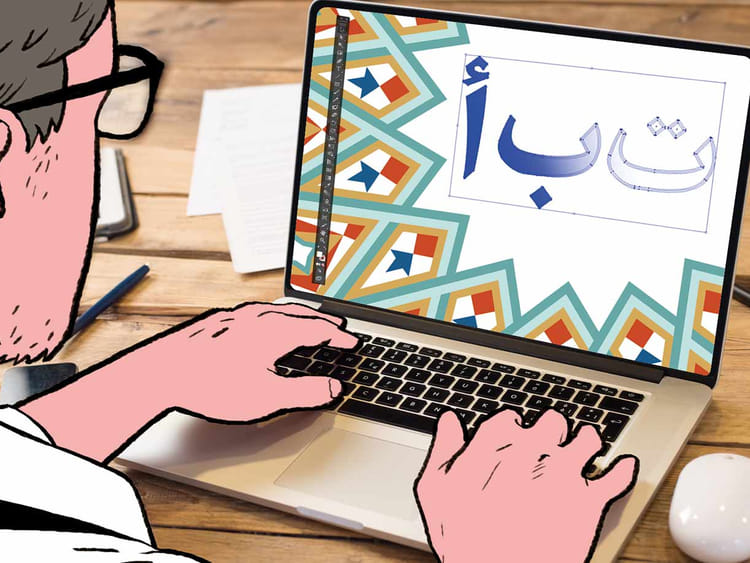
Cairo: There are 28 letters in the Arabic alphabet. There are four possible written forms for each letter, depending on whether it stands alone, or comes at the beginning, middle or end of a word. Then there are diacritic symbols, indicating the script’s correct pronunciation, which hover gently above or below each letter’s lines and curves.
What does this all spell out? A tough challenge for aspiring Arabic font designers.
“There is no content online for learning Arabic type design, so for designers who are self-taught like myself, it’s very difficult to learn,” says Mohammad Jaber, founder of Kief type foundry.
Jaber is the creator of the Cairo Font — the first free open-source Arabic, Urdu and Farsi typeface available in six thicknesses (or weights, in type-speak) developed to match the popular Latin typeface family Titillum web. The font, with its wide-based letters and short vertical lines, is used in the poster for the Cairo Now! City Incomplete exhibition at Dubai Design Week.
With the boom in Arabic content online — only expected to increase in coming years — there’s renewed interest in type design in the Middle East.
Type designers, the calligraphers of our digital age, face several struggles — dealing with the inherent difficulties of designing Arabic fonts, creating a market for and promoting their work, and striking a balance between the essentially ornamental nature of Arabic scripts and the utility and readability that modern type display requires.
“You want to be pretty but practical,” says Jaber. “You want to break the rules but not break them too far.”
Kief is one of a handful of type foundries that have sprung up in the region recently, and Jaber’s aim is to build a culture of type design in local markets. The number of available Latin fonts still vastly outnumbers the existing Arabic ones, perhaps because most software is initially developed to support, and developed in regions which use Latin scripts.
“I don’t really like it when people say that Arabic is more difficult, because Latin isn’t that easy either,” he says. “But Arabic definitely takes more work.”
Jaber recently published three new open-source fonts and shared the source files so that other aspiring type designers can build on his work. This can cut the effort involved in font building from scratch by half.
When designing a font, Jaber refers to one or more of the classical Arabic calligraphy scripts as his “skeleton”, taking the angular grids of the Kufi script, and combining it with the slopes of Thuluth and the simple curvature of Ruq’ah, to create something new.
“When working on the Cairo font I used Kufi as the perfect starting point,” says Jaber. “Not depending on one of the classical fonts makes it look like a mess.”
Design initiative Khotout West El Balad (“downtown lines”), jointly created last year by Ismaelia for Real Estate Development and the JWT Cairo ad agency, have reversed this process. Instead of working from the classical scripts, its designers took to the streets of downtown Cairo to document signs and storefronts to see what they could bring from the urban environment to their computer screens.
The result is six new fonts, also available for free download, on the Khotout West El Balad website.
One of these, a slim, high-reaching, rectangular font called Nefertari, takes its style from a travel company of the same name. Another, Maktab Rita (‘Rita’s Office’) combines the fonts of an office building sign and the nearby Rita church. “We wanted the fonts to have a story behind them,” says Ebrahim Islam, head of design and branding at JWT. “It’s not just the visual aspect that’s important.”
After a four-month research and design process, in which Islam, Ghalia Elsrakbi and Haytham Nawar worked with design students from the German University in Cairo, the fonts were launched in January. They were a hit. The Madinet El Batt was used, for example, by well-known band Masar Egbari for their new music video, Cherophobia, and by students in jewellery-maker Azza Fahmy’s design school.
Although much of Khotout West El Balad’s research found signs based in the common Arabic scripts, they were able to document and work from what Islam calls “free fonts” commonly found in handwritten signs, ones that don’t follow the conventional calligraphic rules. Using these as the base for digital fonts gave designers the freedom to alter the proportions of letters and add more stylised design elements. But it was something akin to reinventing the wheel.
“The free fonts were like prototypes,” explains Islam. “But because you only have a few of the letters, the ones that are on the sign, you have to make the rest to match.”
The prototype for one Khotout West El Balad font, Safwat, doesn’t rely on any pre-existing script but on a series of geometric shapes. The font has a 1970s modernist feel.
The project’s second stage is convincing shop owners to use these new fonts in their renovations. Although they’ve had some success — Islam tells me that a Khotout West El Balad font was recently used in the refurbished storefront of an auction house in downtown’s Kodak Passageway — the impact of the new fonts on the environment that inspired them has been slow.
The market is still very much under development, says Jaber, who, along with other young type designers, continues to plow through the Arabic script’s dots and curves, carving out new ways of communicating beauty and meaning.
“What we want to say is, you don’t have to go to Linotype in Germany to have your own font,” he says. “You can do that right here in the Middle East.”